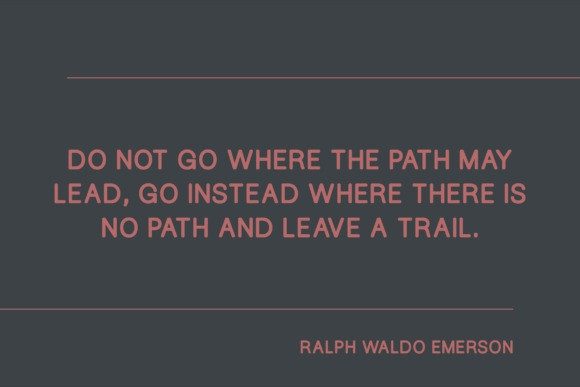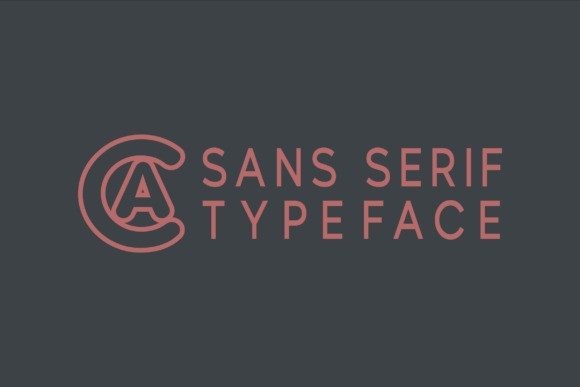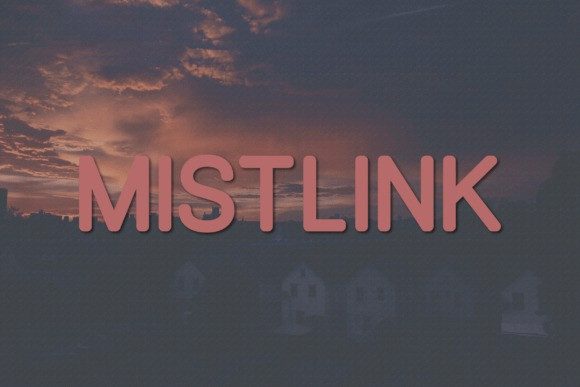
Mistlink Font
Mistlink Font is a refined and modern sans-serif font that pairs precision with a soft, rounded character—ideal for digital-first designs that need clarity and warmth.
With its smooth terminals and balanced proportions, Mistlink offers a sleek, professional look while maintaining a friendly, approachable tone. The font includes all-uppercase letters, numerals, and a full set of punctuation, making it highly versatile for branding, web interfaces, tech products, minimalist packaging, and clean editorial layouts.
Its slightly condensed form enhances space efficiency without sacrificing legibility. Whether you’re designing mobile apps, headlines, or lifestyle content, Mistlink delivers a polished aesthetic with subtle personality. It’s a future-forward typeface that feels grounded in both usability and style